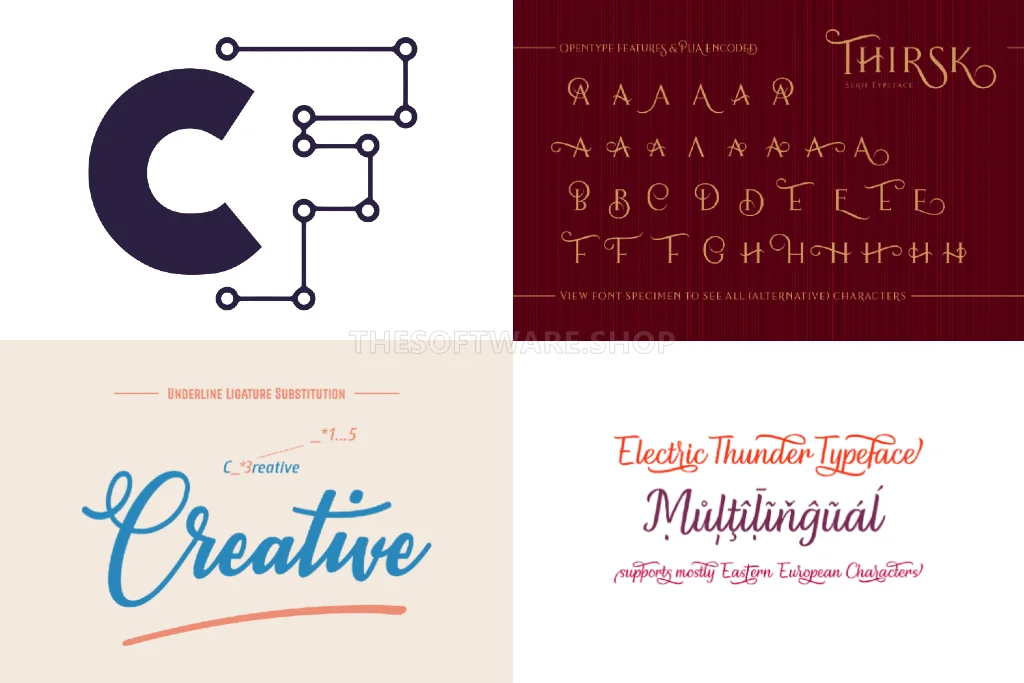
With the three Premium Fonts from Creative Fabrica, you can add value to your writing and documents. You can use them to achieve impressive effects when it comes to modern calligraphy, elegant serif fonts, or trendy fonts. With these beautiful fonts, you can achieve impressive effects when it comes to modern calligraphy, elegant serif fonts, or trendy fonts, for example on birthday cards and Christmas cards, on posters or wedding invitations. These 3 Premium fonts can be used for a lifetime with a commercial premium license (More info: https://www.creativefabrica.com/single-sales-license/).